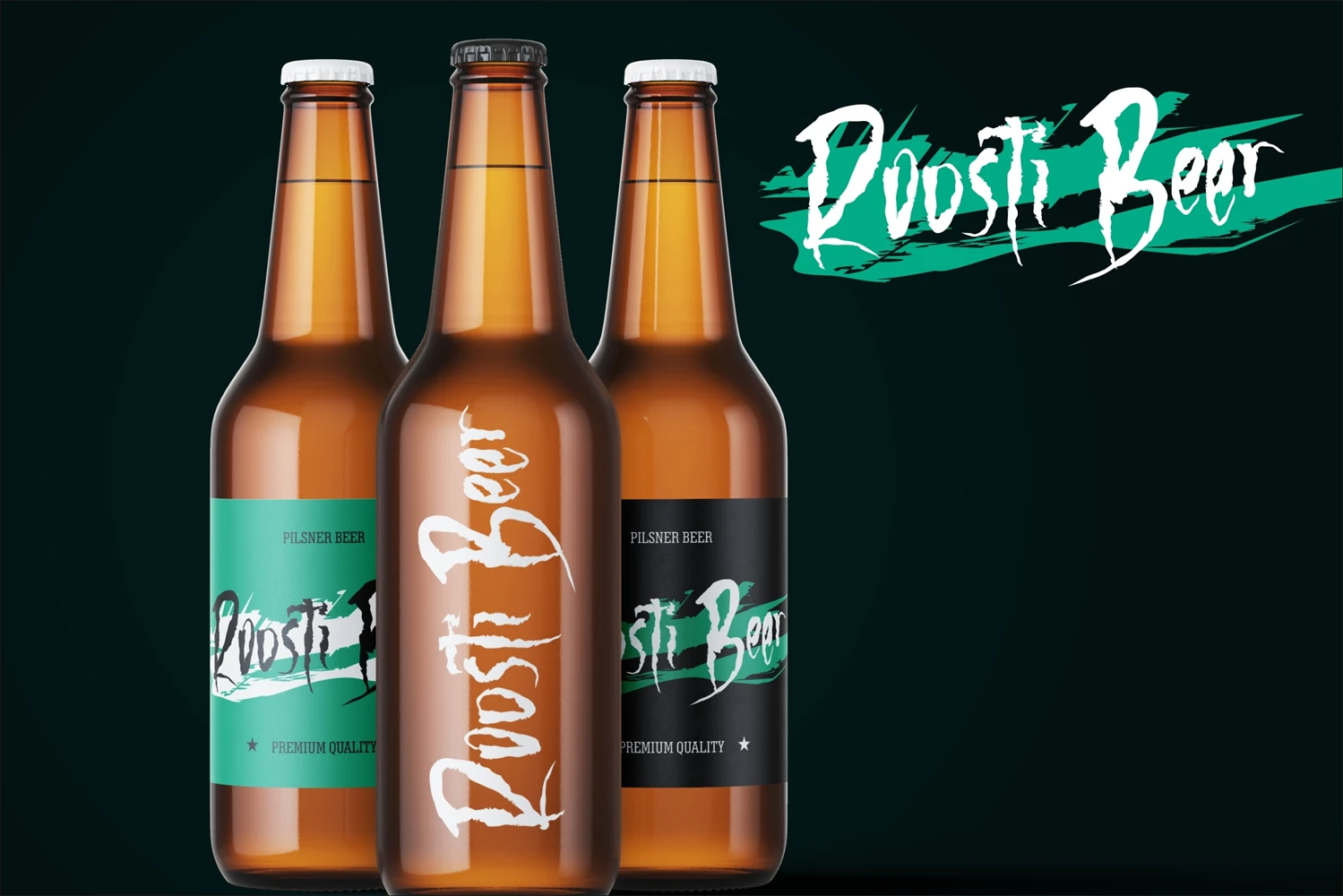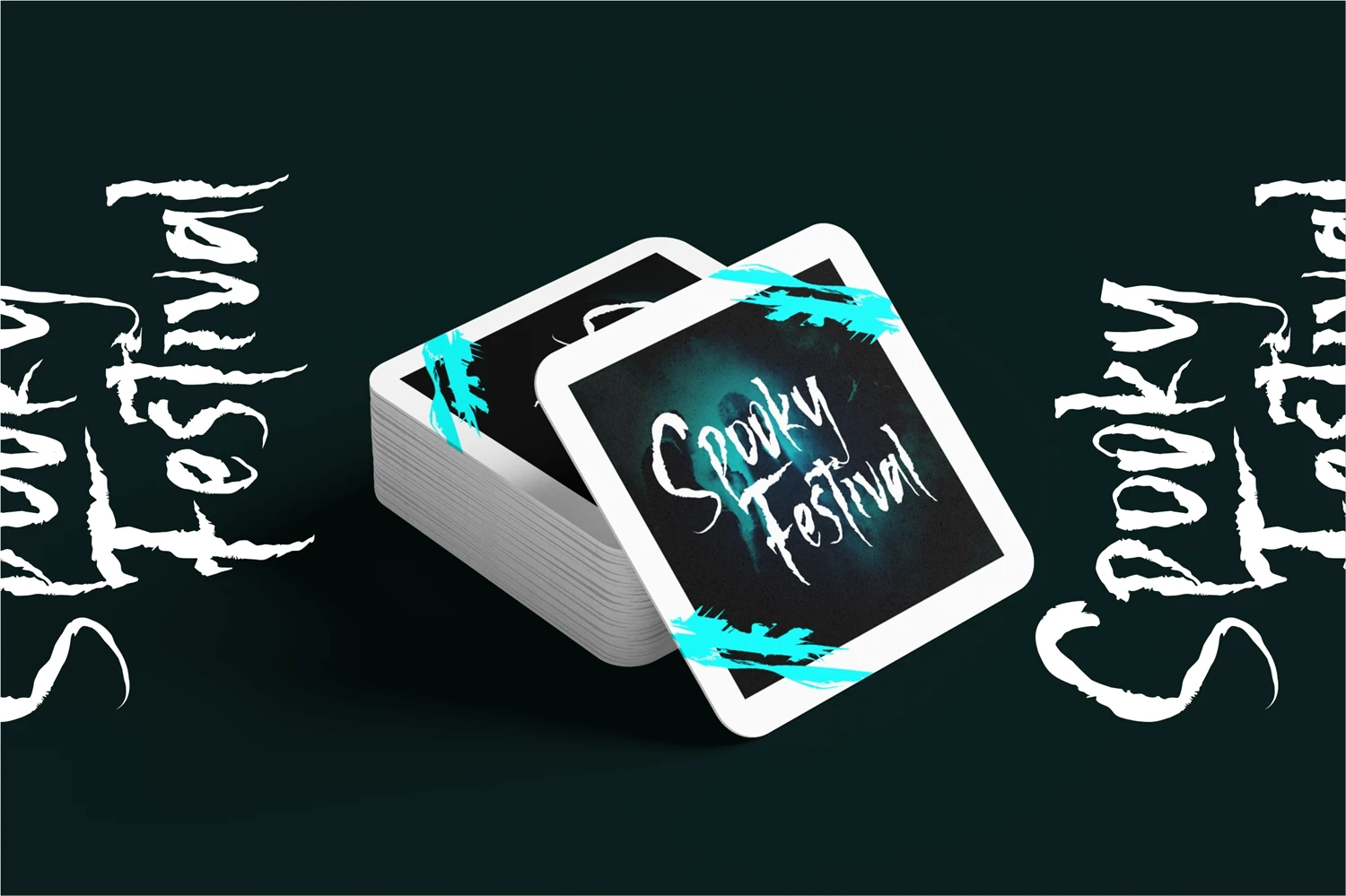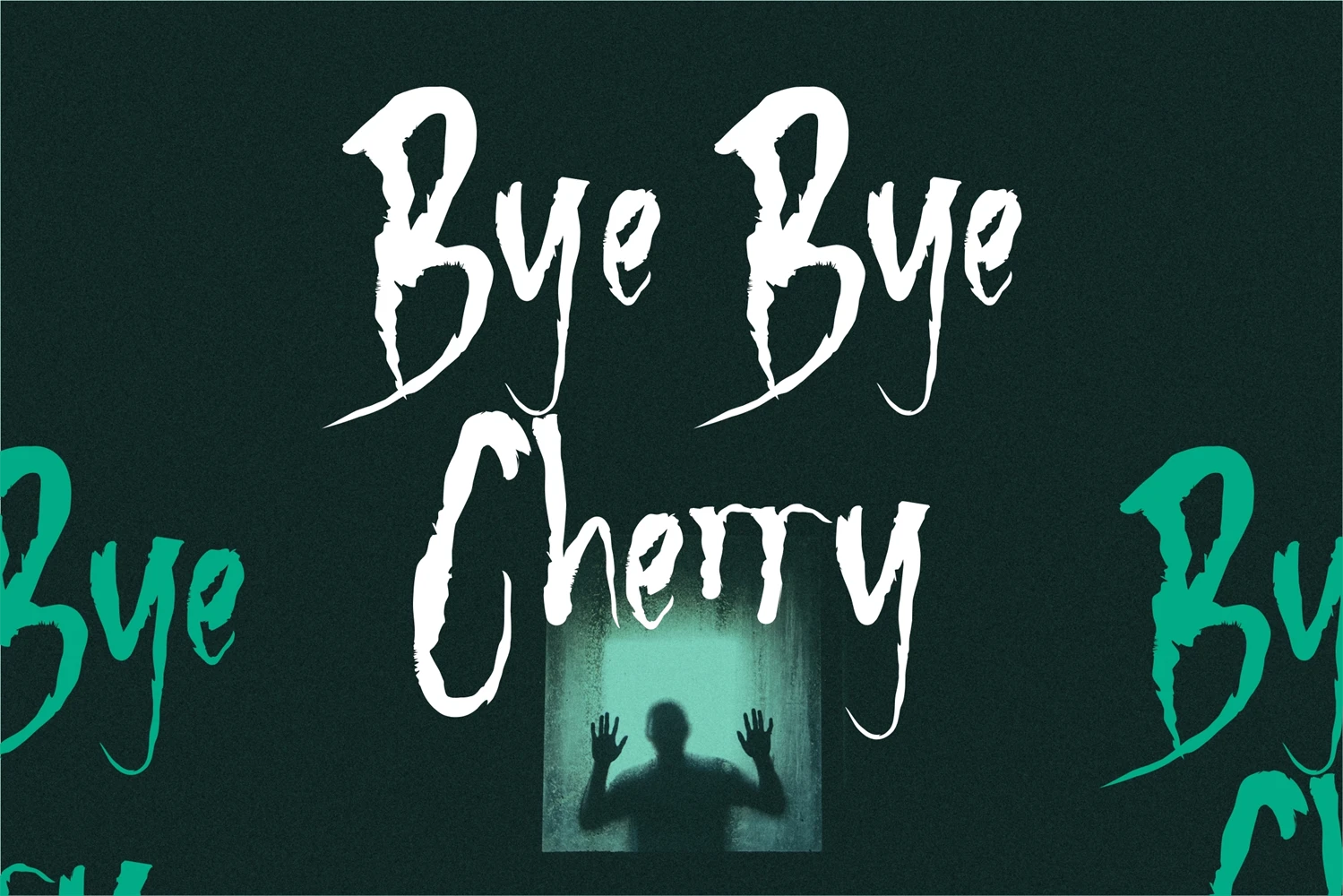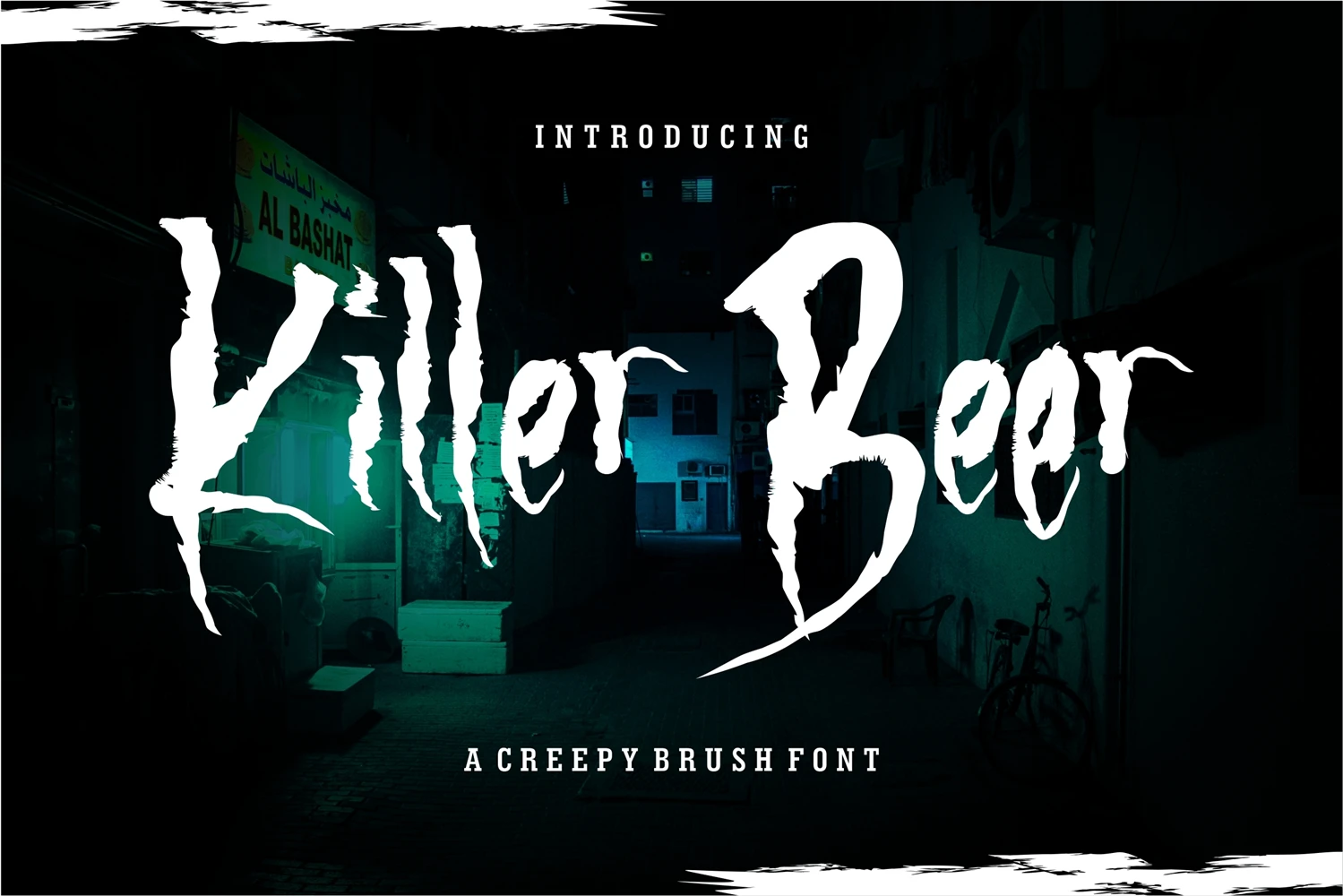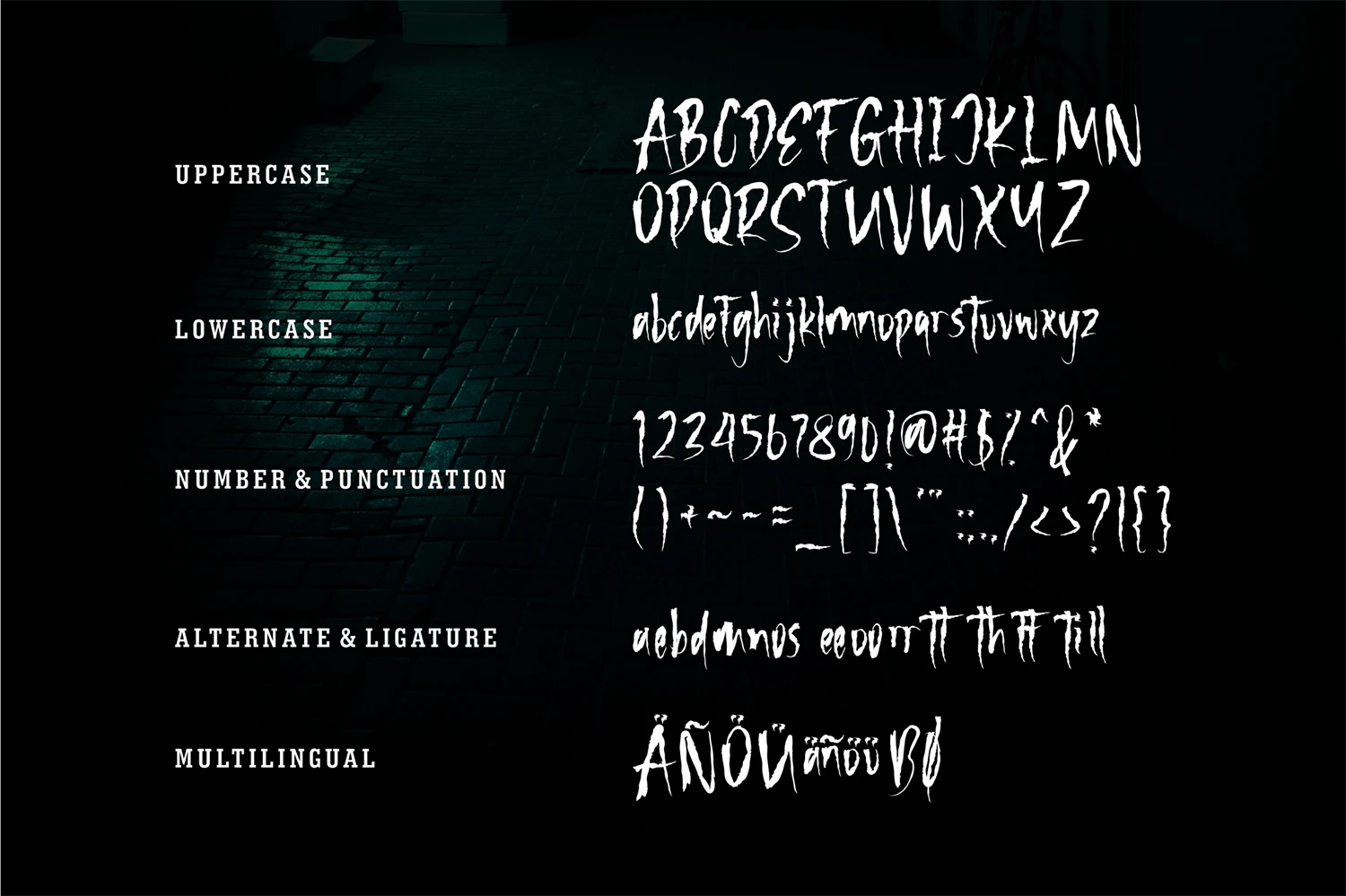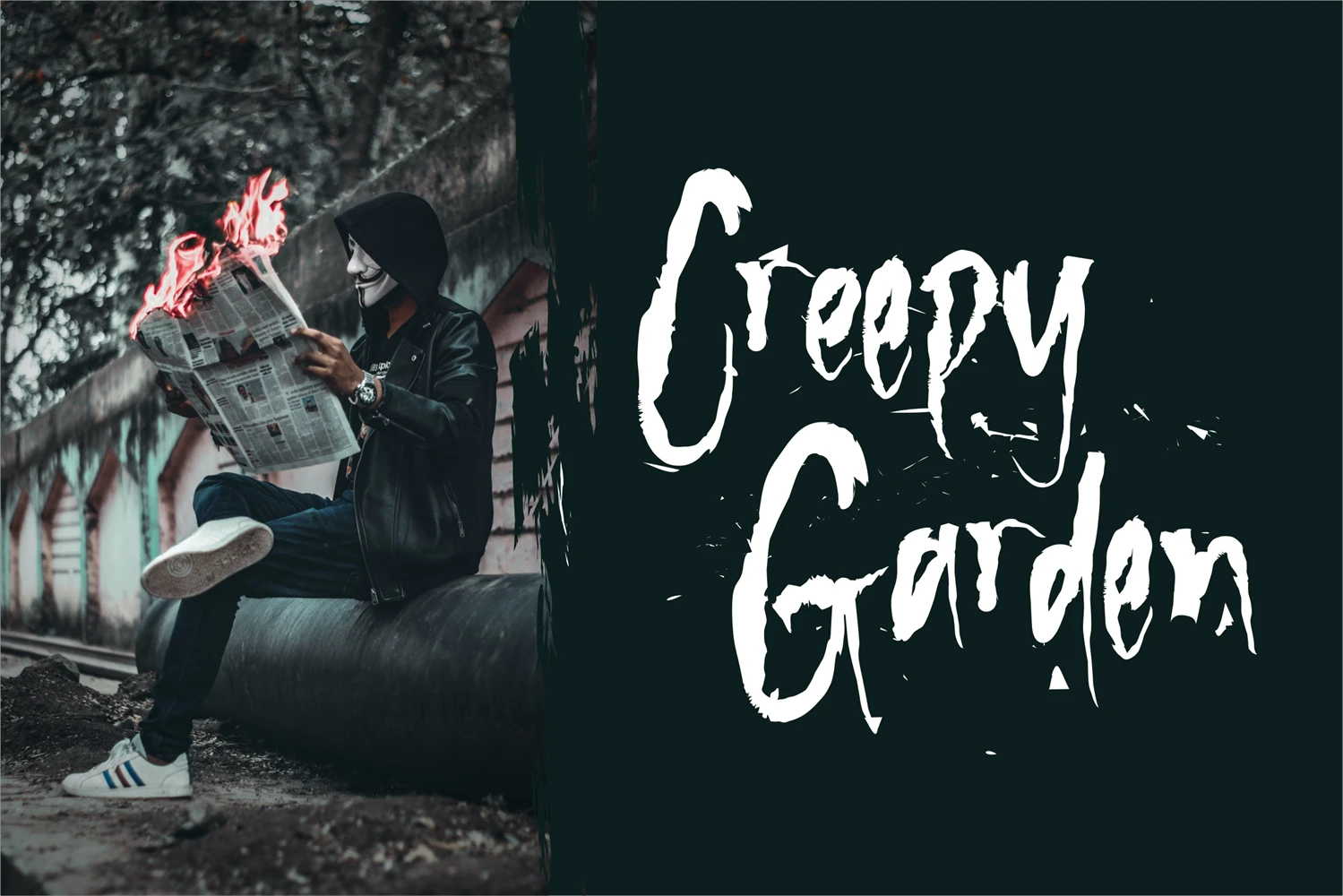
Killer Beer - Horror Font Style
is a sophisticated and timeless script font that exudes a sense of grace and refinement. Its delicate yet confident strokes make it an ideal choice for projects that demand an air of sophistication, such as invitations, wedding materials, and upscale branding.